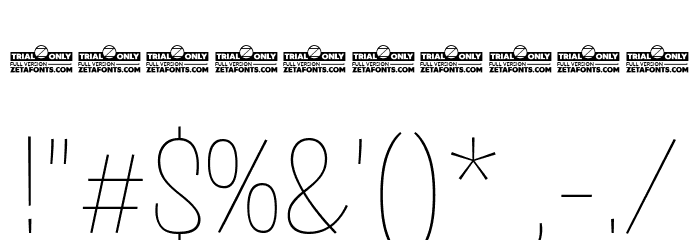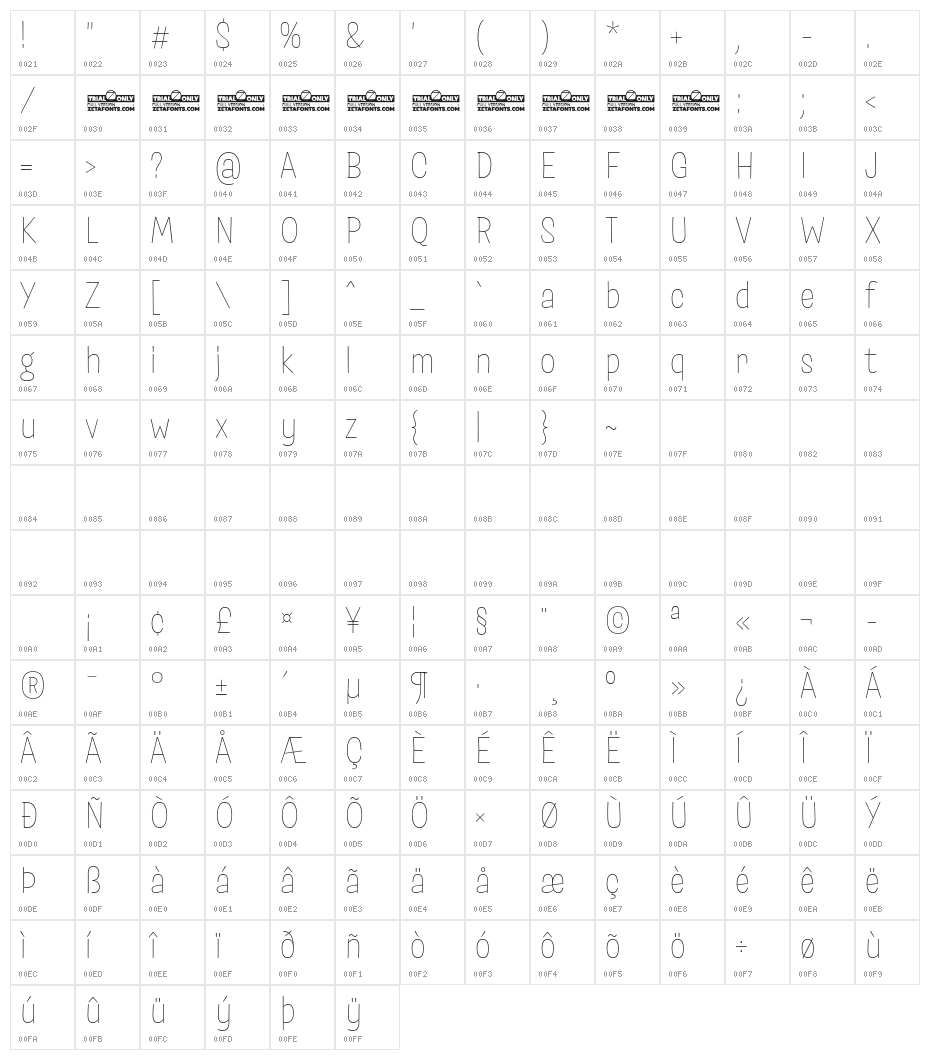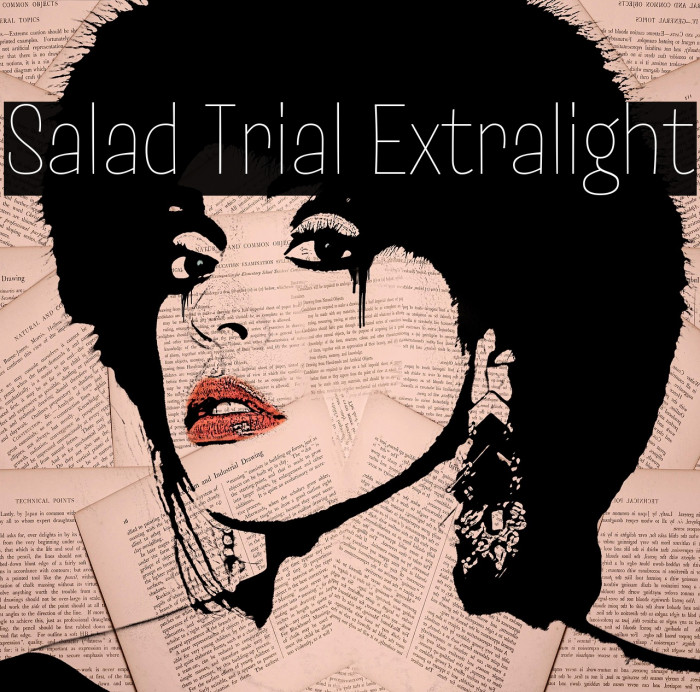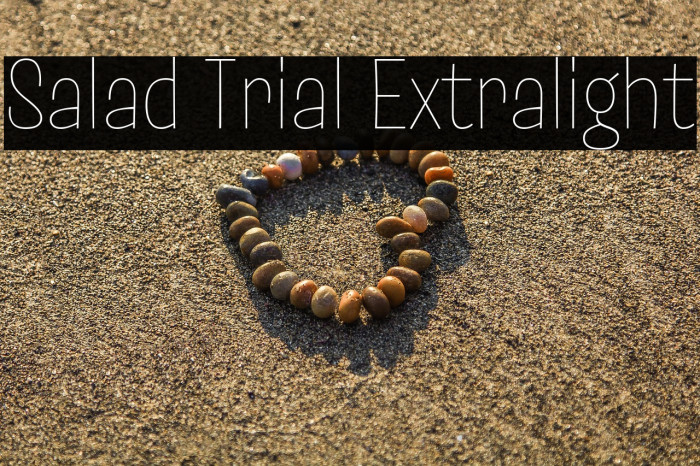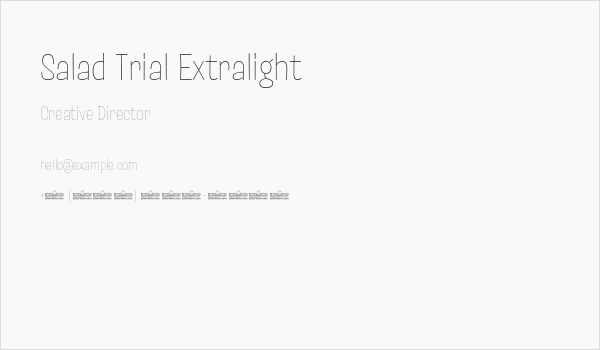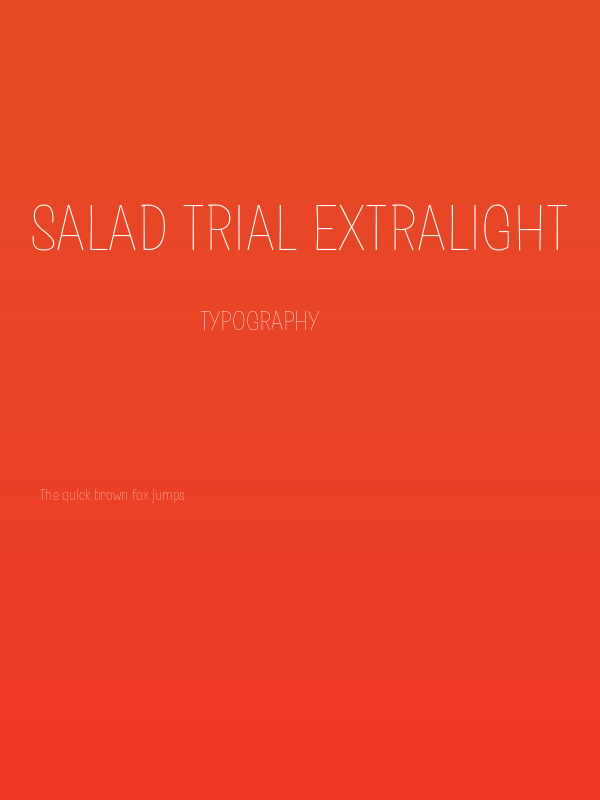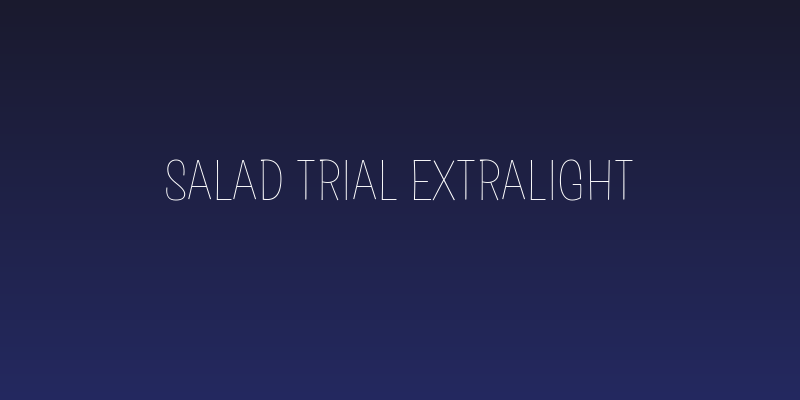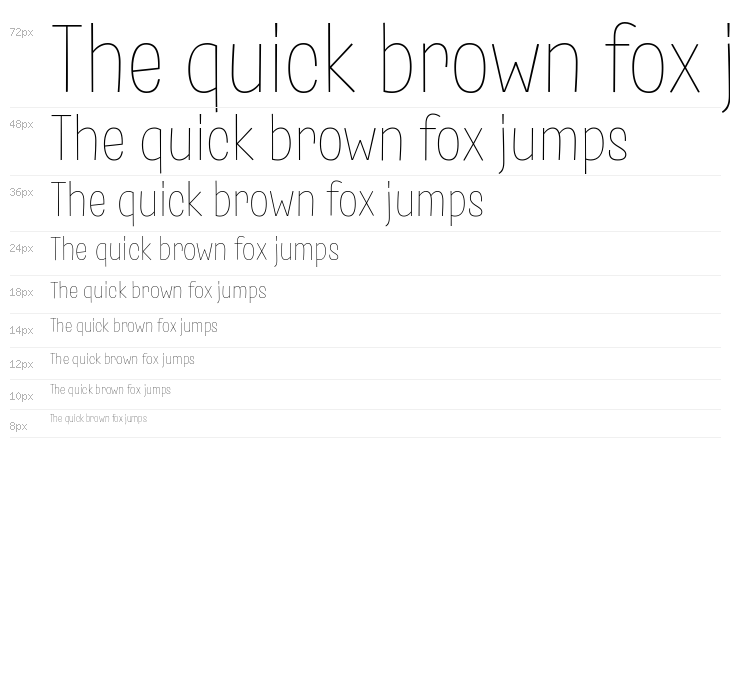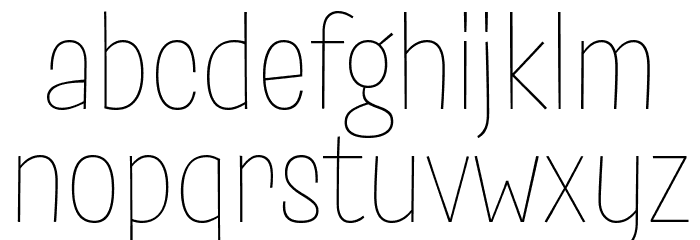
Salad Trial Extralight Font
Salad Trial Extralight Description
This font features a clean and minimalist design with thin, uniform strokes that give it an airy and modern appearance. The characters are elegantly crafted with a slight geometric influence, evident in the consistent line thickness and smooth curves. The uppercase letters stand tall and are slightly condensed, while the lowercase letters maintain a harmonious balance with a slightly wider stance. The numerals and special characters follow the same design principles, ensuring a cohesive look across all text. This font's simplicity and clarity make it highly legible, even at smaller sizes.
| Proposed Projects | Ideal for modern branding, minimalist design projects, editorial layouts, and digital interfaces. |